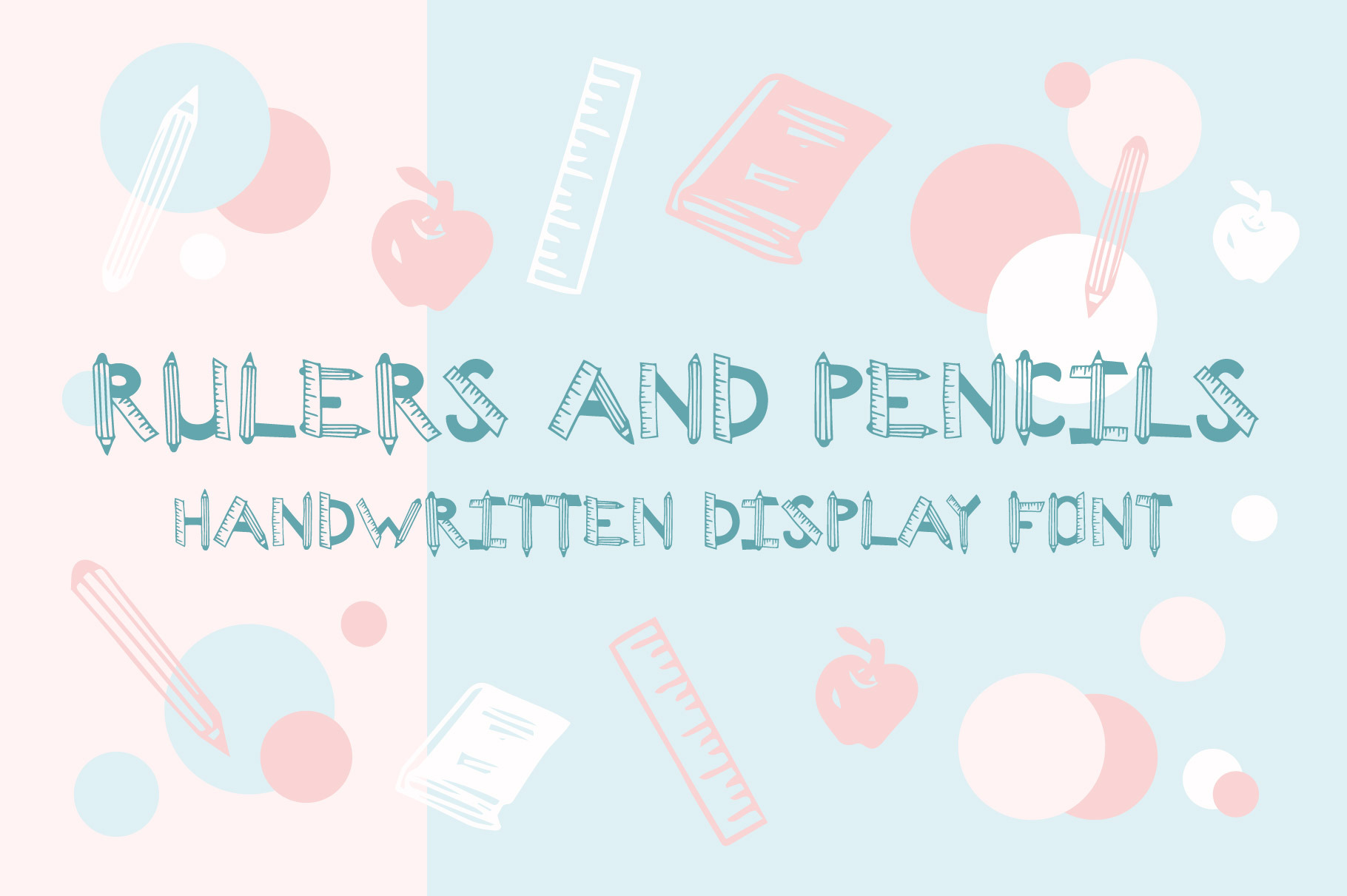
Rulers and Pencils Font
Rulers and Pencils is an all-caps, handwritten display font great to be used in all types of editorial designs, back-to-school advertisements, magazines, titles, decoration, stationery, etc. Unique and original, it communicates a playful and visually attractive personality.